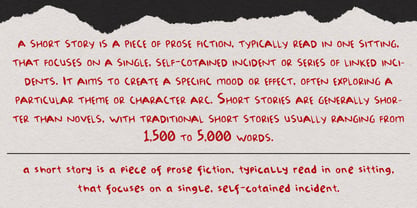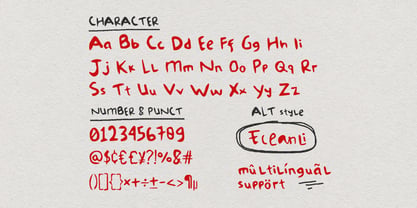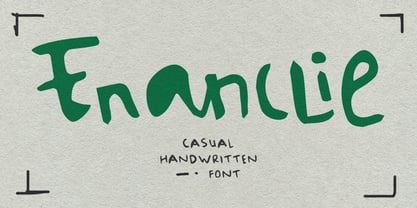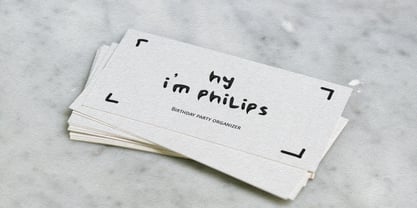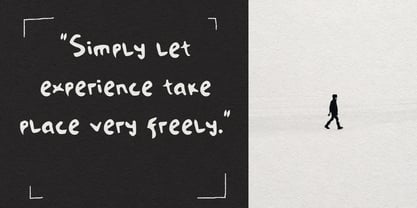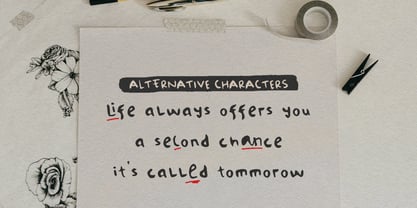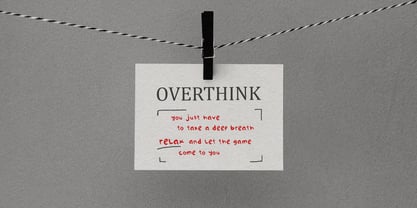
MC Enanclie
by Maulana Creative
The MC Enanclie Font Family was designed by Gilang Maulana and published by Maulana Creative. MC Enanclie contains 1 styles. More about this family
Enanclie is a authentic handmade handwritten font. With bold stroke, fun character with a bit of ligature and alternate. To give you an extra creative work. Enanclie font support multilingual more than 100+ language. This font is good for logo design, Social media, Movie Titles, Books Titles, a short text even a long text letter and good for your secondary text font with sans or serif. Make a stunning work with Enanclie font.
Designers: Gilang Maulana
Foundry: Maulana Creative